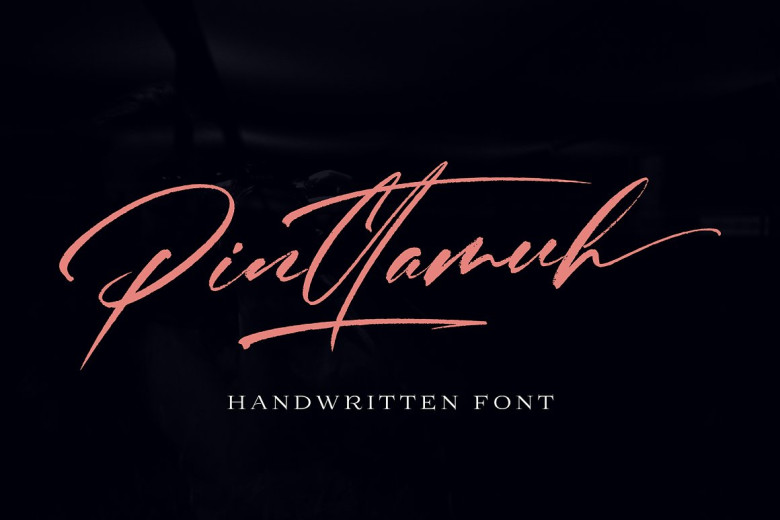
Pinttamuh Font
Introducing a handwritten font with a new style Pinttamuh, this font will perfect for many different projects ex: quotes, logo, blog header, poster, banding, fashion, apparel, letter, invitation, stationery, etc.
Pinttamuh Handwritten Font